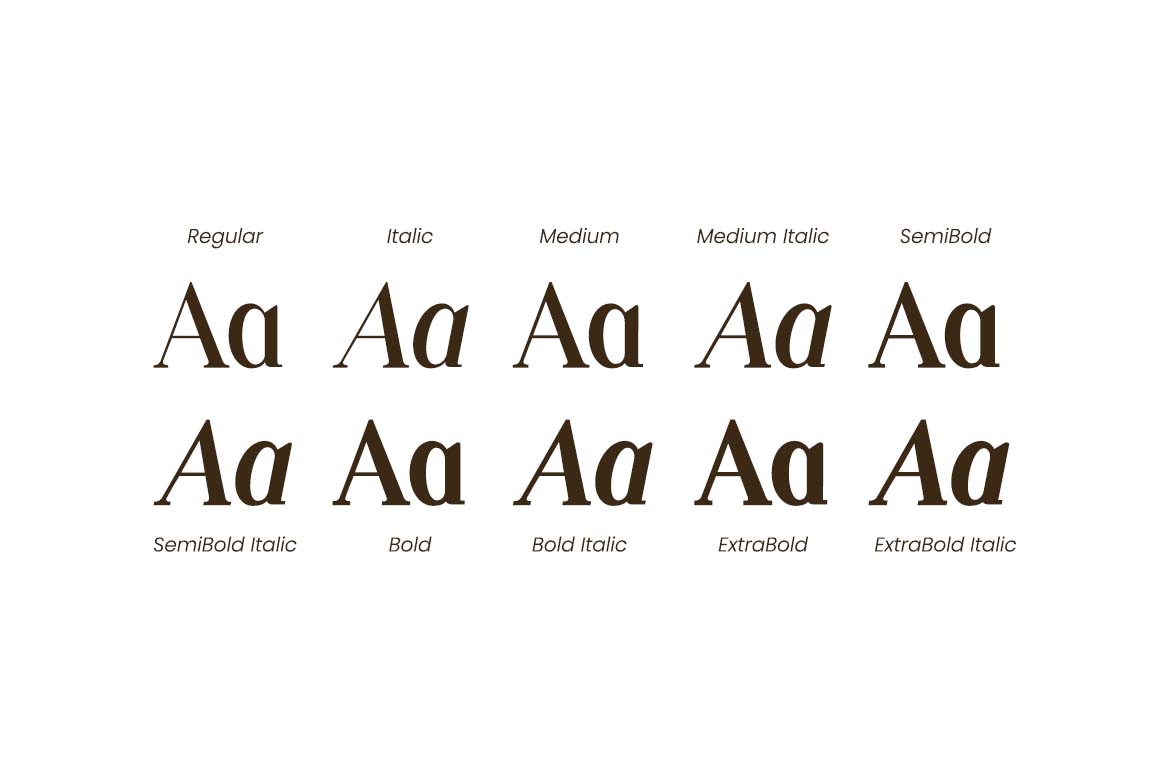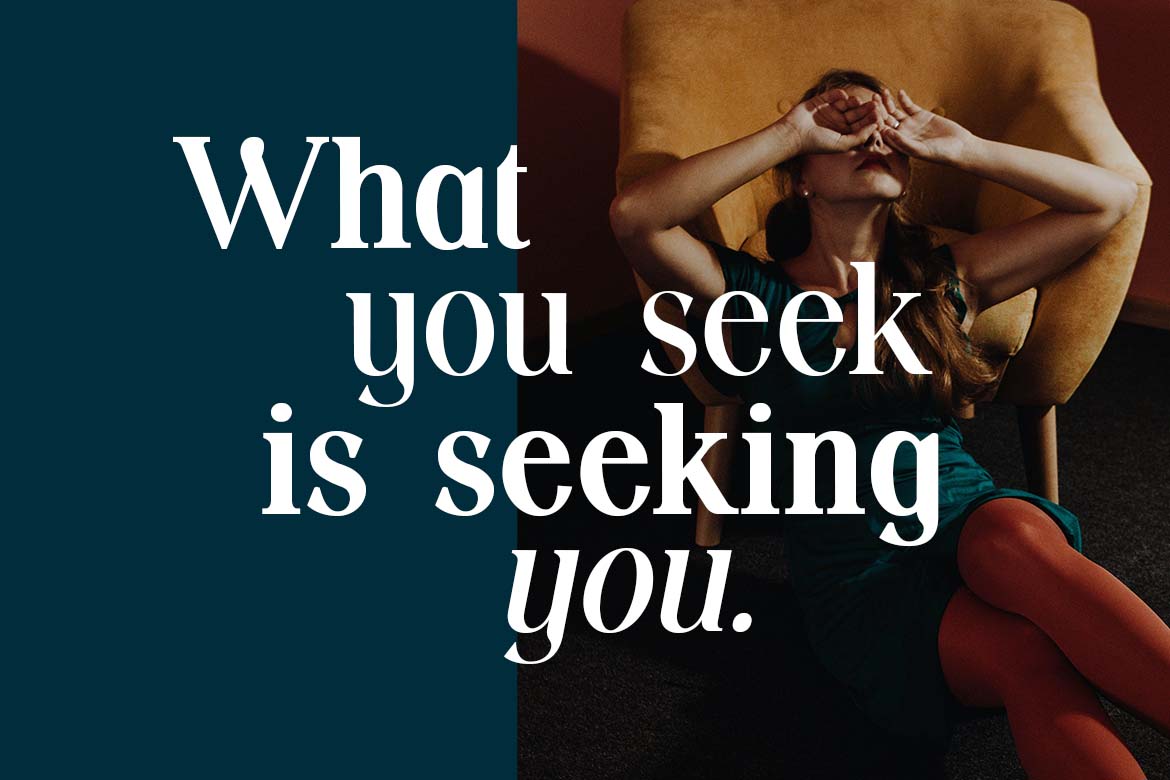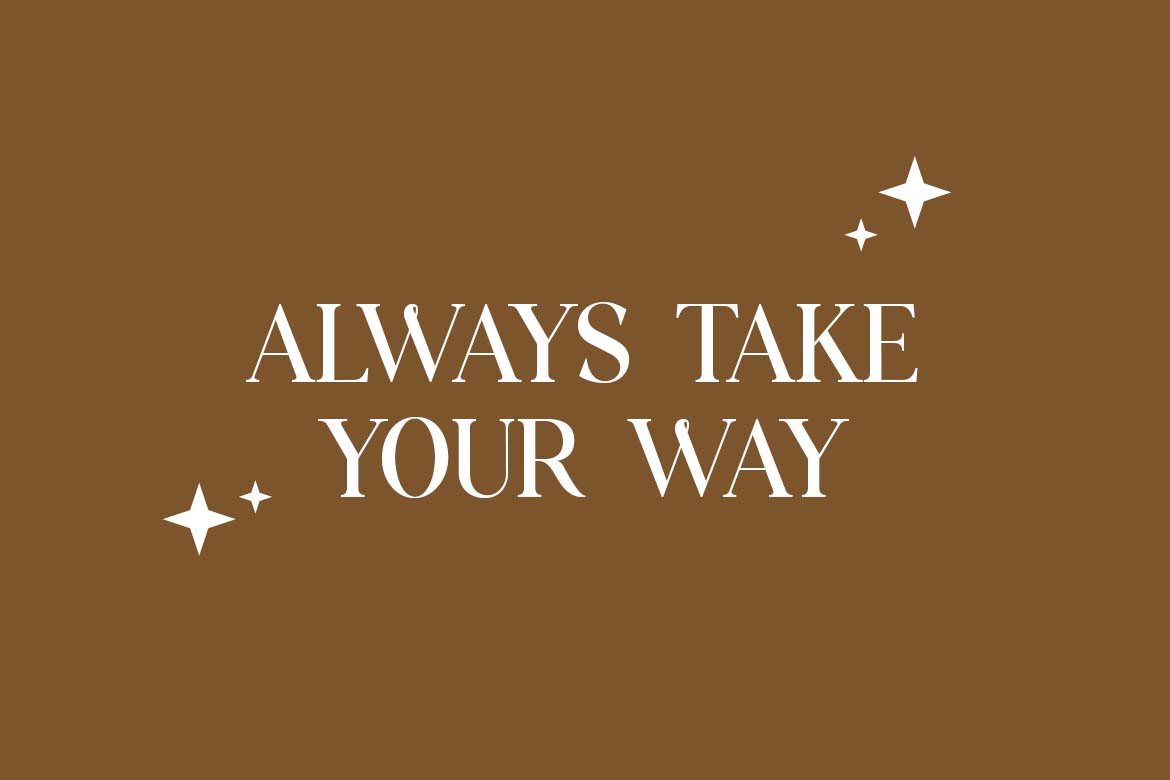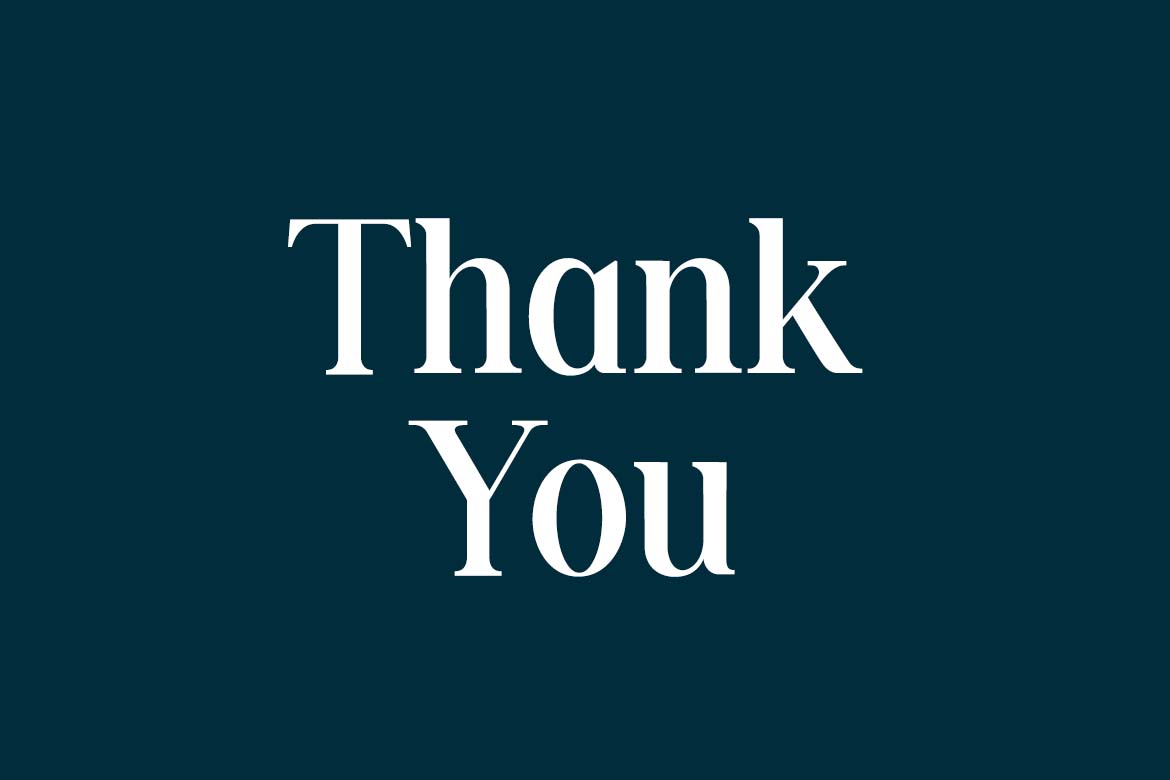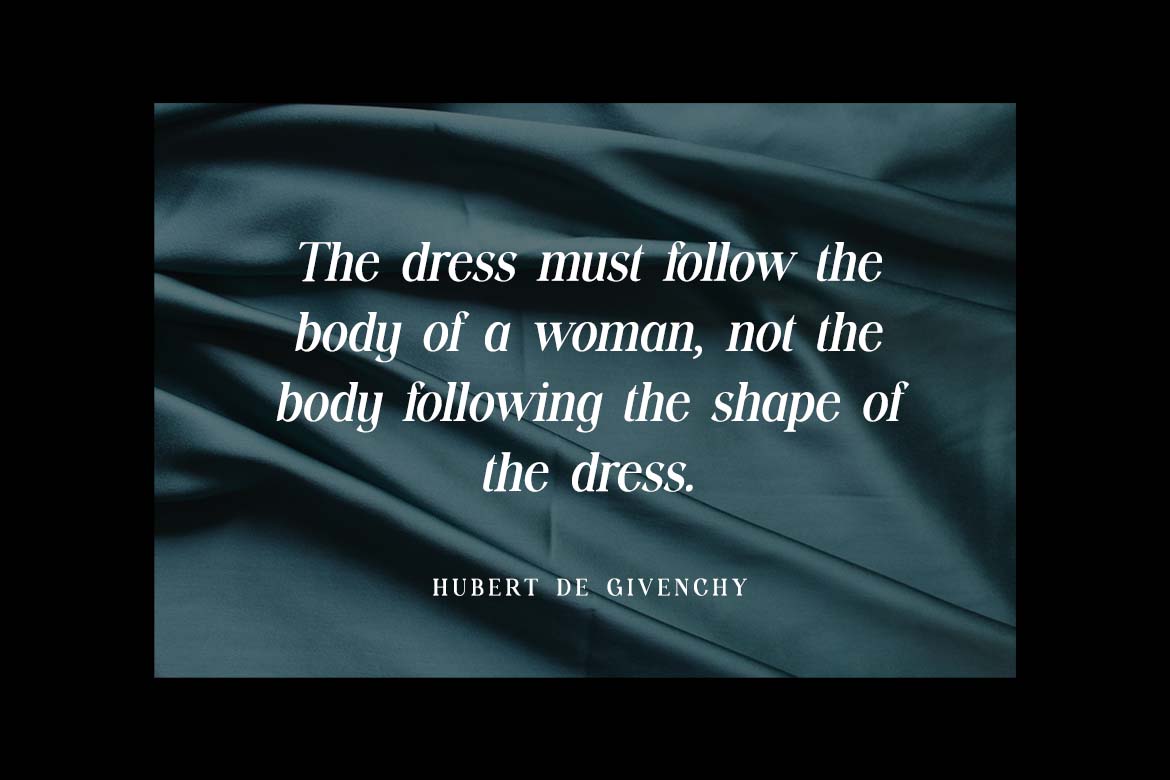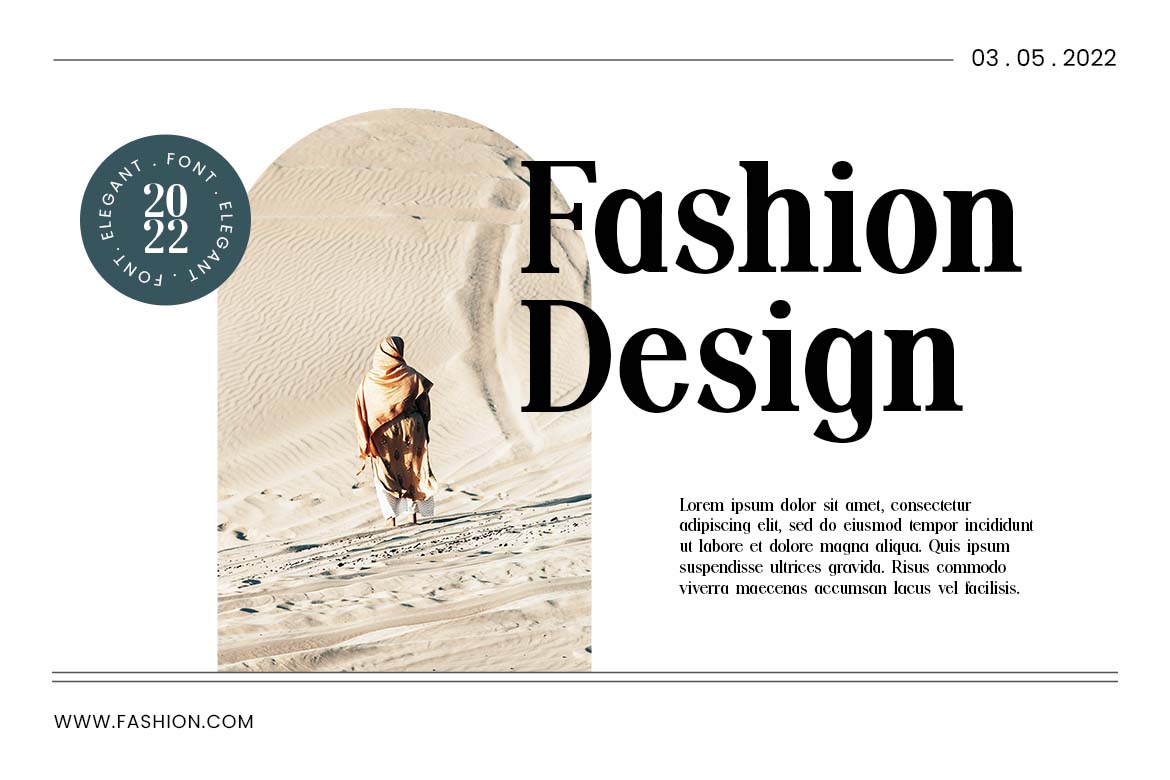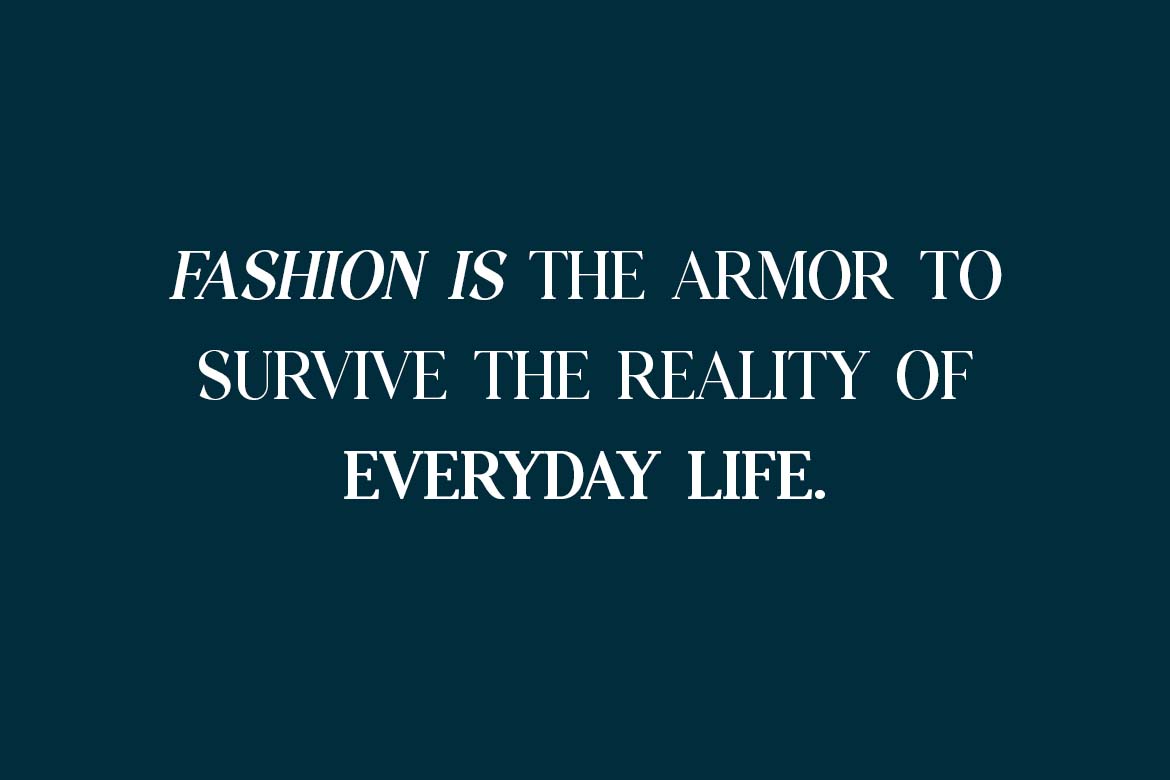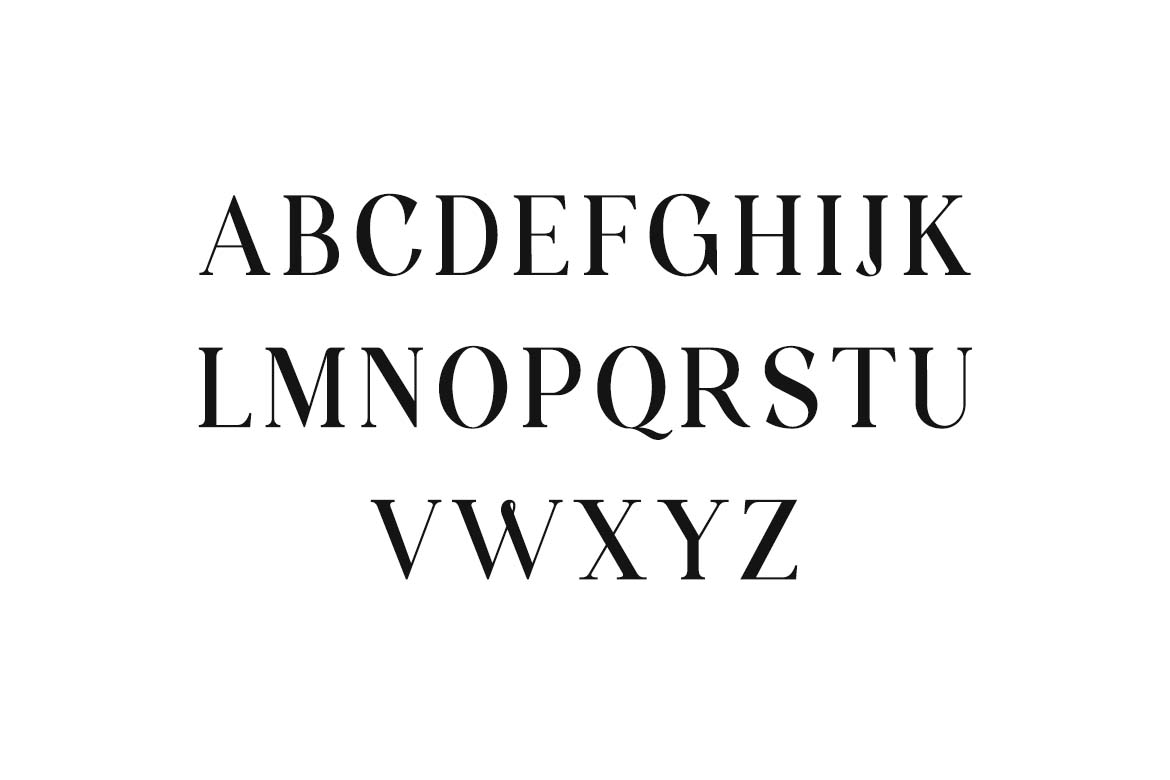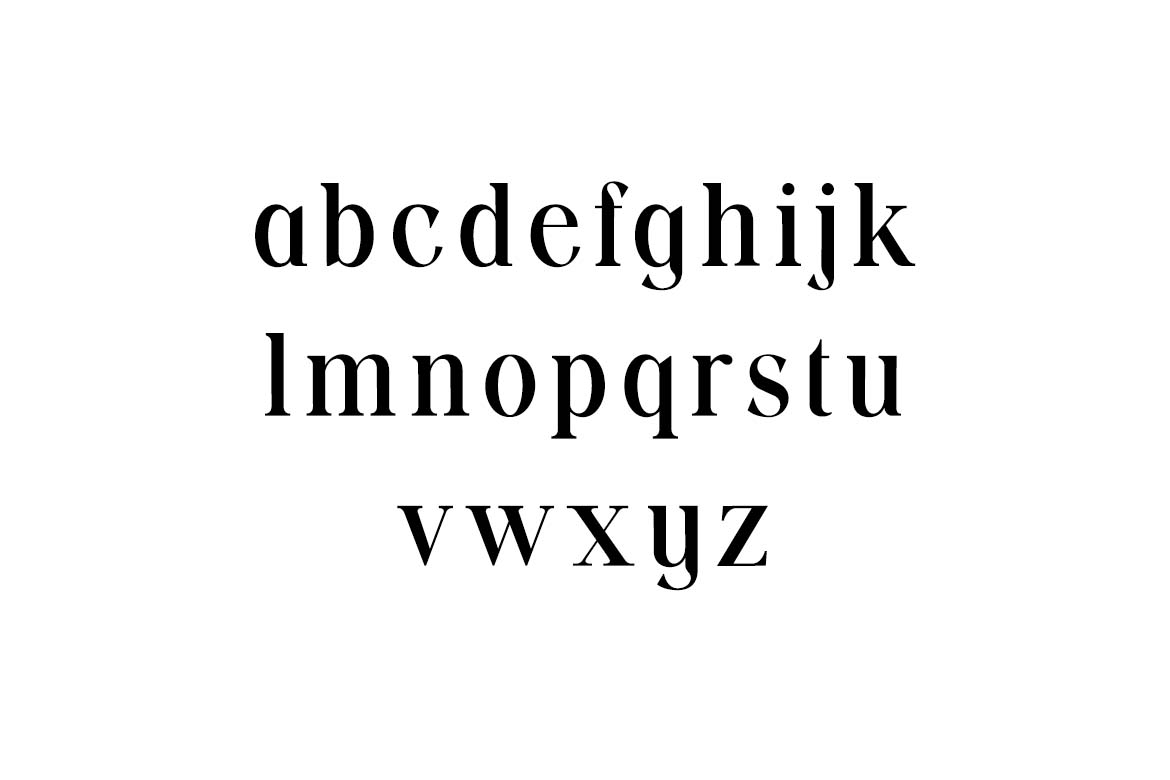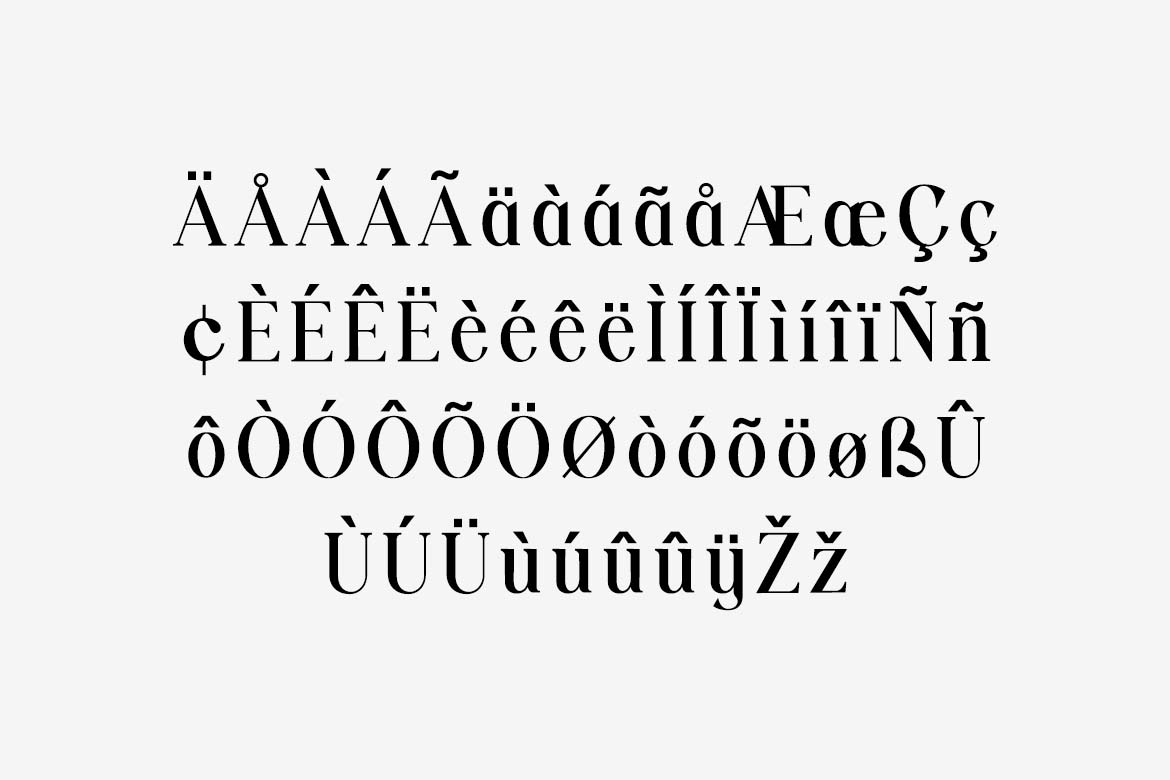
Vexford Quantum Elegant Serif Family Font
Vexford Quantum Elegant Serif Family Font. The modern display font feels beautiful classy, elegant, and stylish. This font is ideally suited for a wide variety of projects, such as signature, stationery, logo, wedding, typography quotes, magazine or book covers, website headers, branding, and more. Also, fashion-related branding or editorial design displays both masculine and feminine qualities.